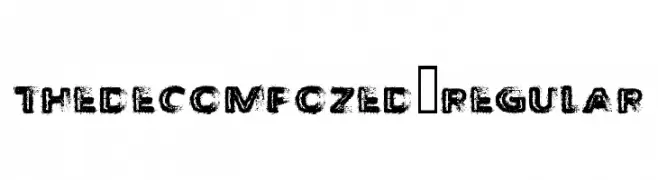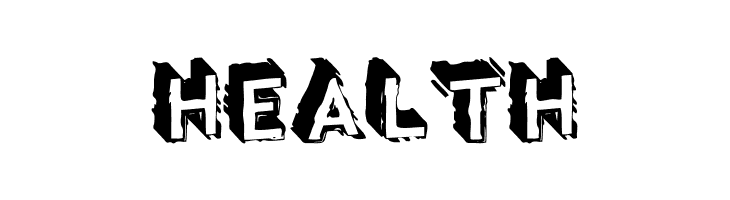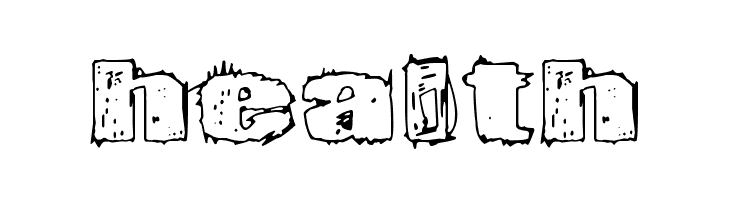
( Fonts by www.stimuleyefonts.com )
A distressed, grunge-style font with a textured, weathered appearance.
( Fonts by www.paintblackeditions.org )
A bold, distressed font with a grunge effect for impactful designs.
( Fonts by www.fenotype.com )
A bold, distressed font with a grunge aesthetic and tall, narrow characters.
( Fonts by Astigmatic One Eye Typographic Institute - Brian J. Bonislawsky - astigmatic.com )
A distressed, grungy font with a rugged, eroded appearance.
( Fonts by Rob Dobi - Toxic Type - www.dobi.nu )
A bold, chaotic, and jagged font with a distressed, hand-drawn appearance.
( Fonts by David Rakowski )
A distressed, grunge-style font with a textured, vintage appearance.
( Fonts by pOPdOG fONTS - Dimitris Kolyris - popdog_fonts.tripod.com वाणिज्यिक फ़ॉन्ट )
A bold, textured script font with a cracked, distressed appearance.
( Fonts by Patrick Broderick )
A vintage-style font with a distressed, letterpress appearance.
( Fonts by www.aenigmafonts.com )
A bold, distressed font with a rugged, aged appearance.
( Fonts by Tony O`Farrell )
A bold, jagged, and aggressive font with a distressed, rebellious style.
( Fonts by Pete Klassen - www.thehutt.de )
A medieval-inspired font with sharp serifs and a distressed texture, perfect for fantasy themes.